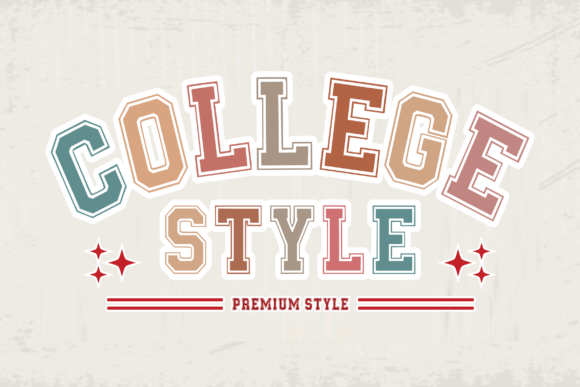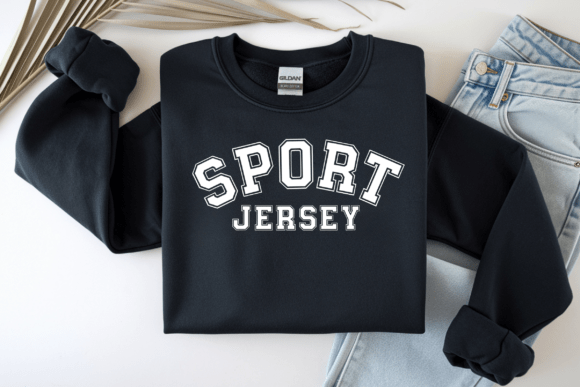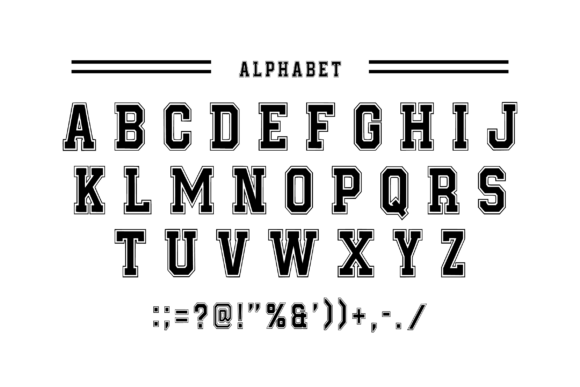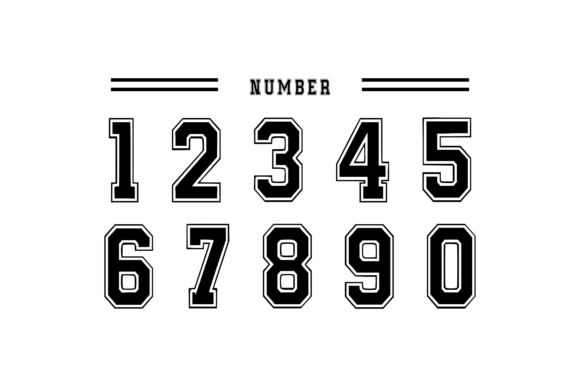
Collegestyle Regular Font
College Style typeface is a versatile font meticulously crafted for a diverse array of branding endeavors. Ideal for projects carrying a sports-oriented theme, this font infuses energy into apparel design, emblems, and digital graphics. True to its name, College Style font expands its range, featuring uppercase alphabets, numerals, punctuation marks, and a diverse mix of symbols.
Elevate your designs with this all-inclusive typographic tool, making each project an epitome of collegiate elegance and sporty vibrancy. Experience the dynamism of fonts with College Style – a tribute to versatility, precision, and aesthetic appeal.